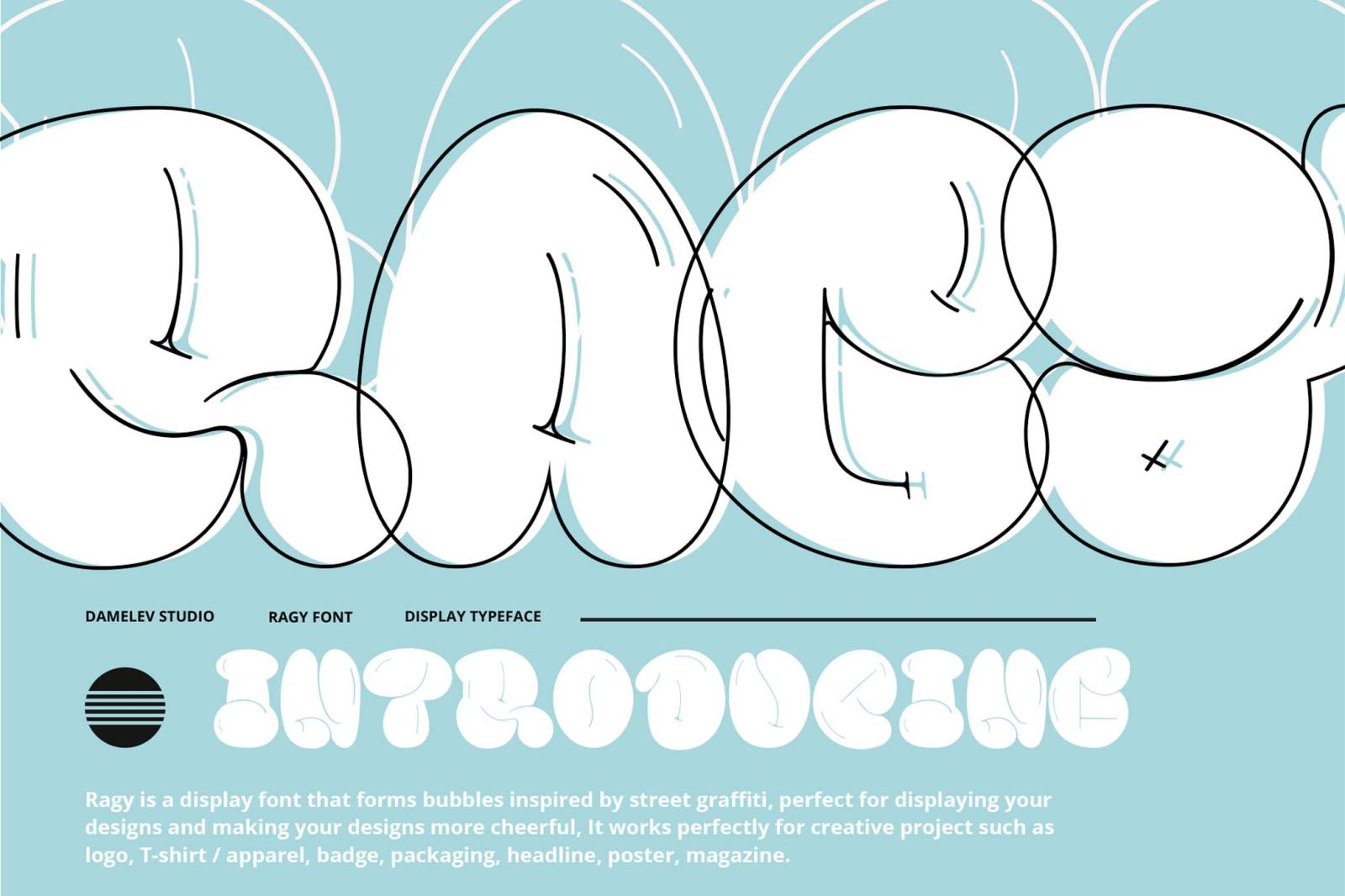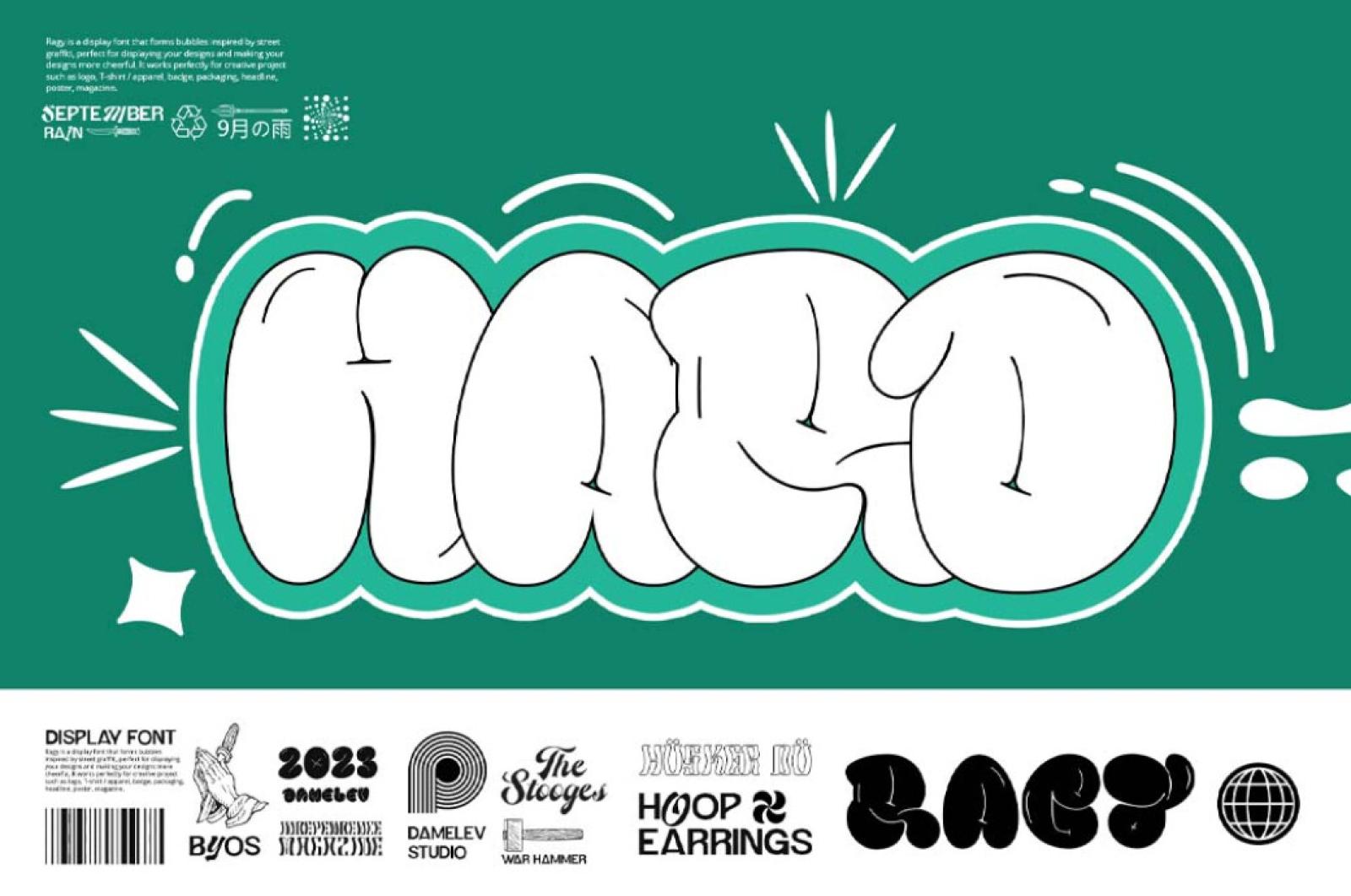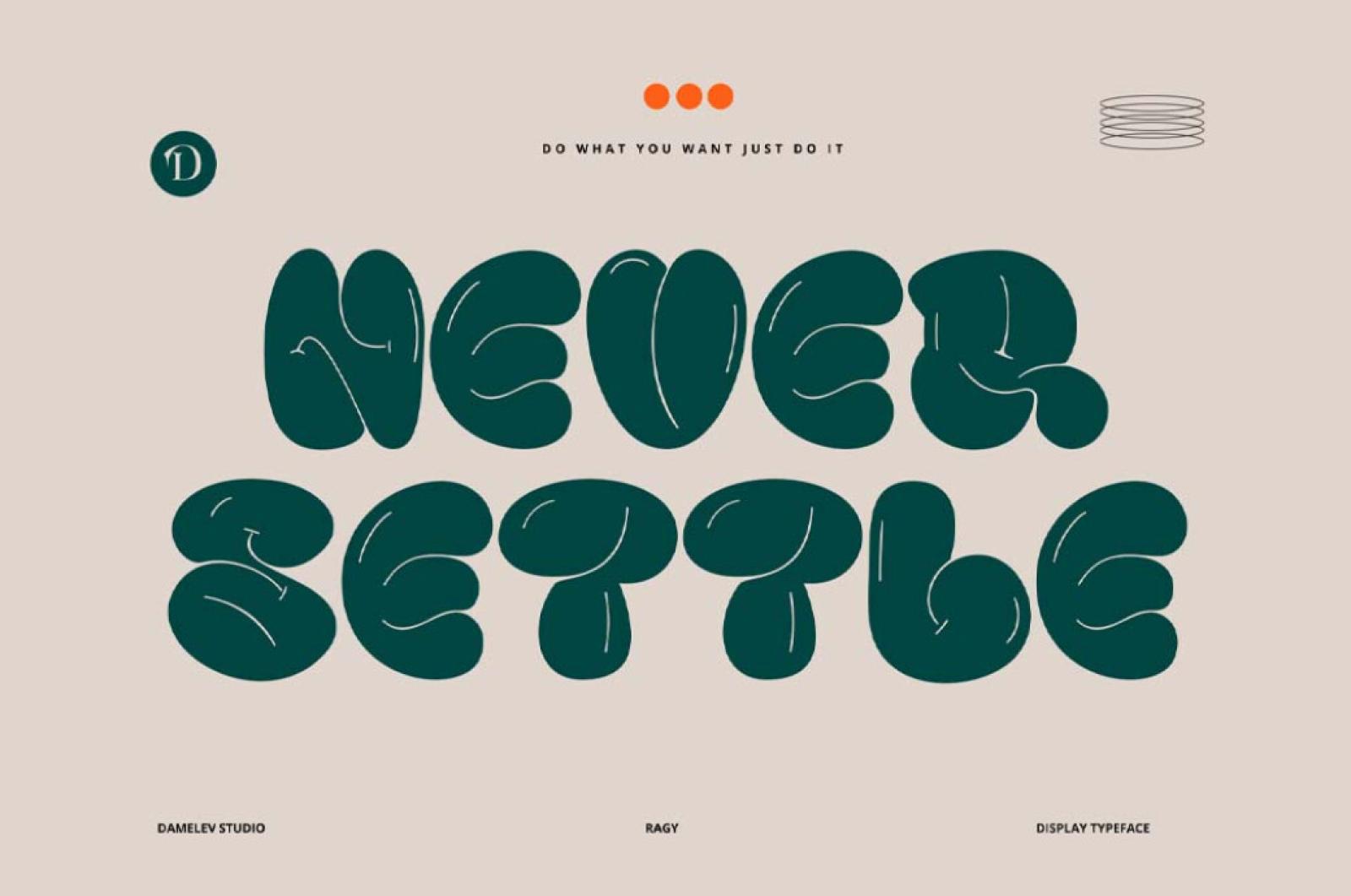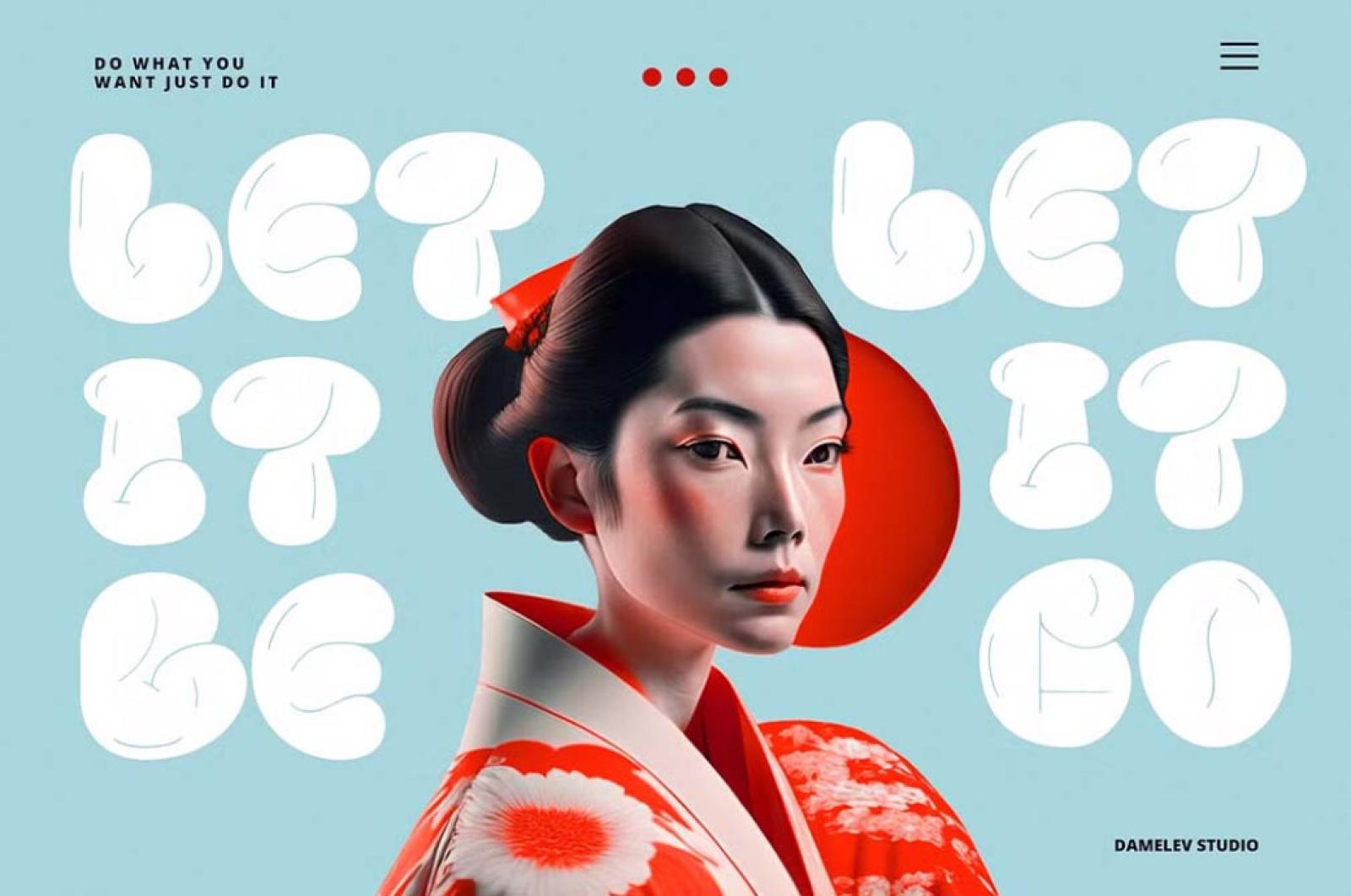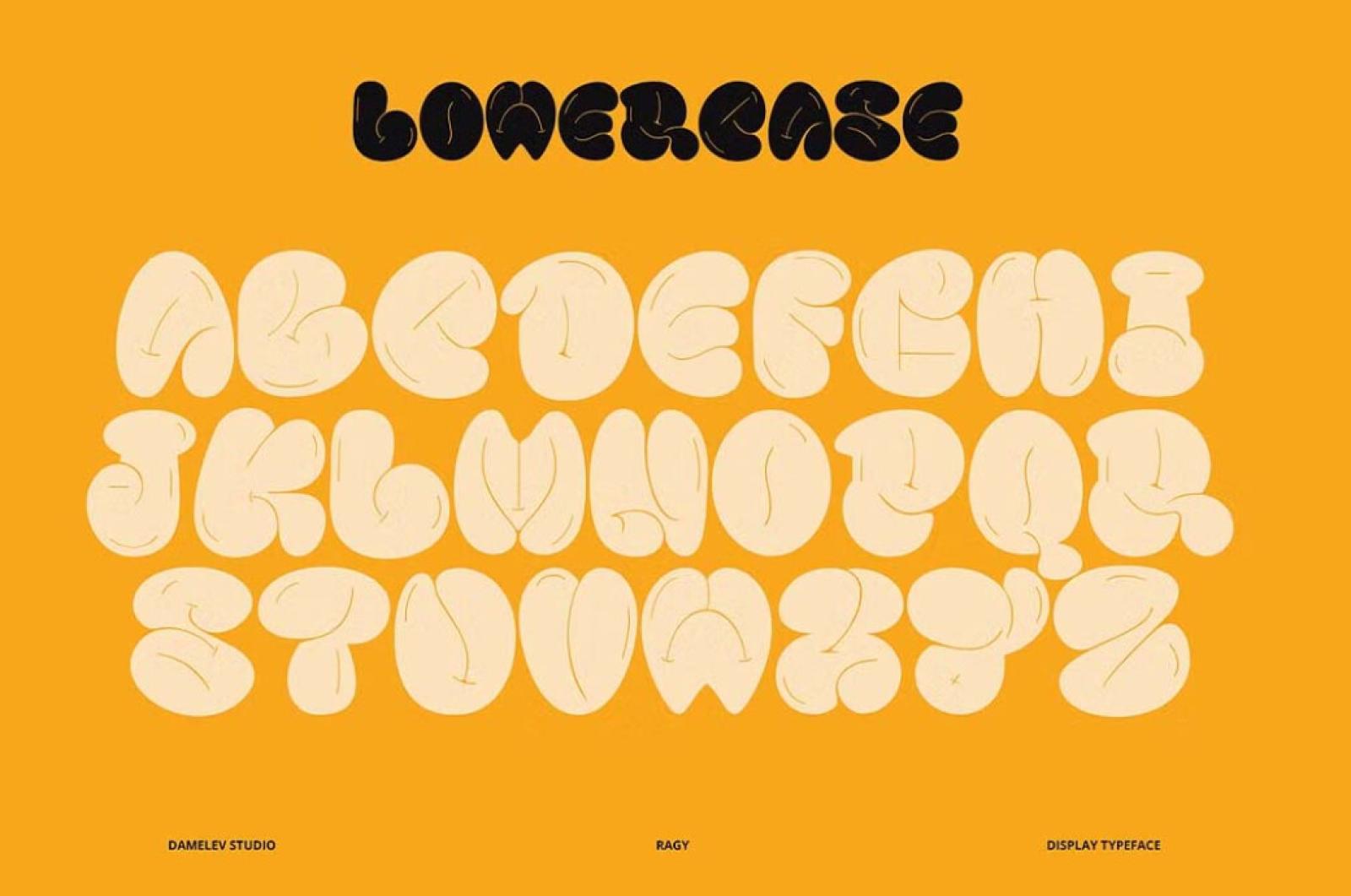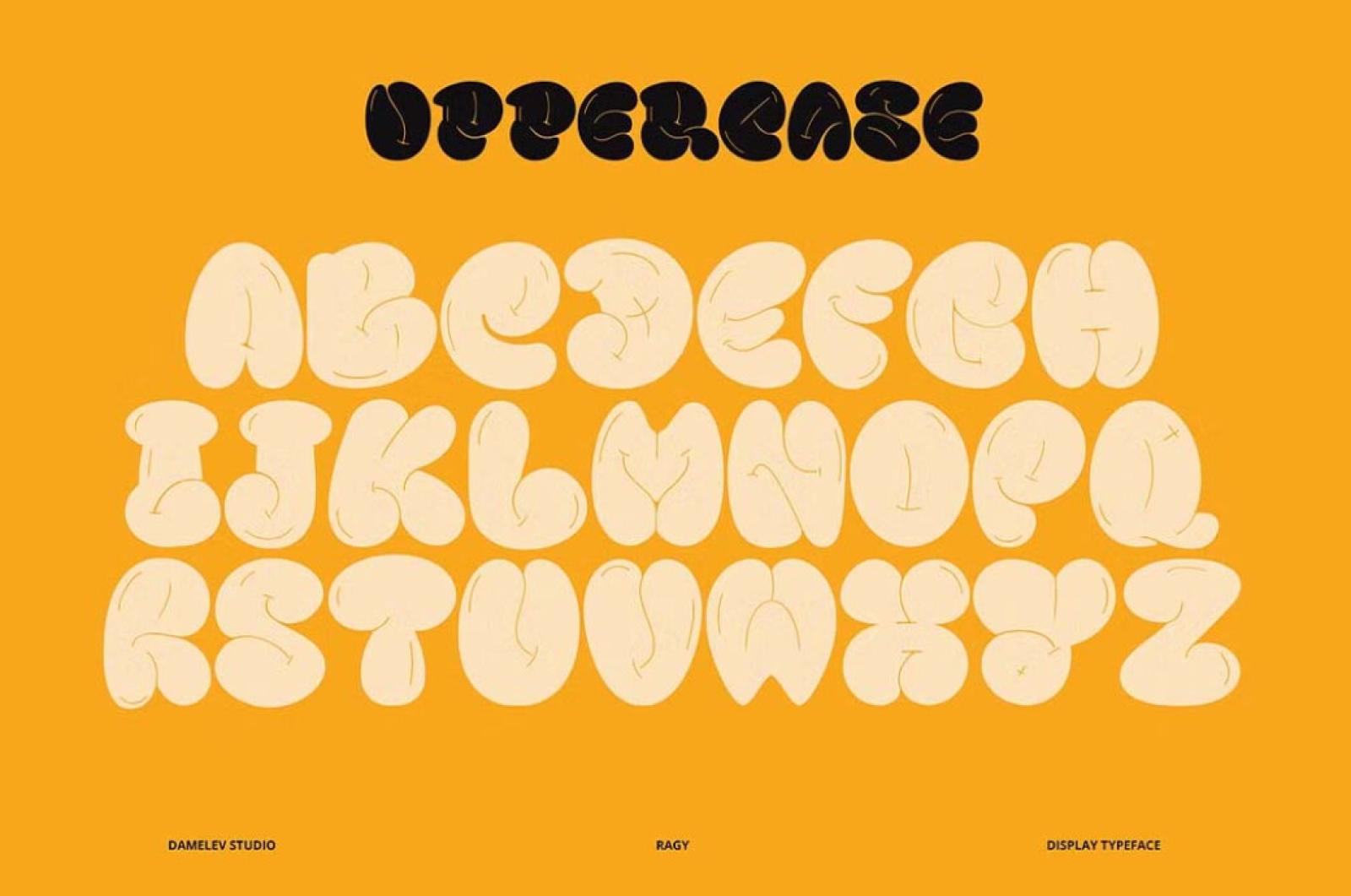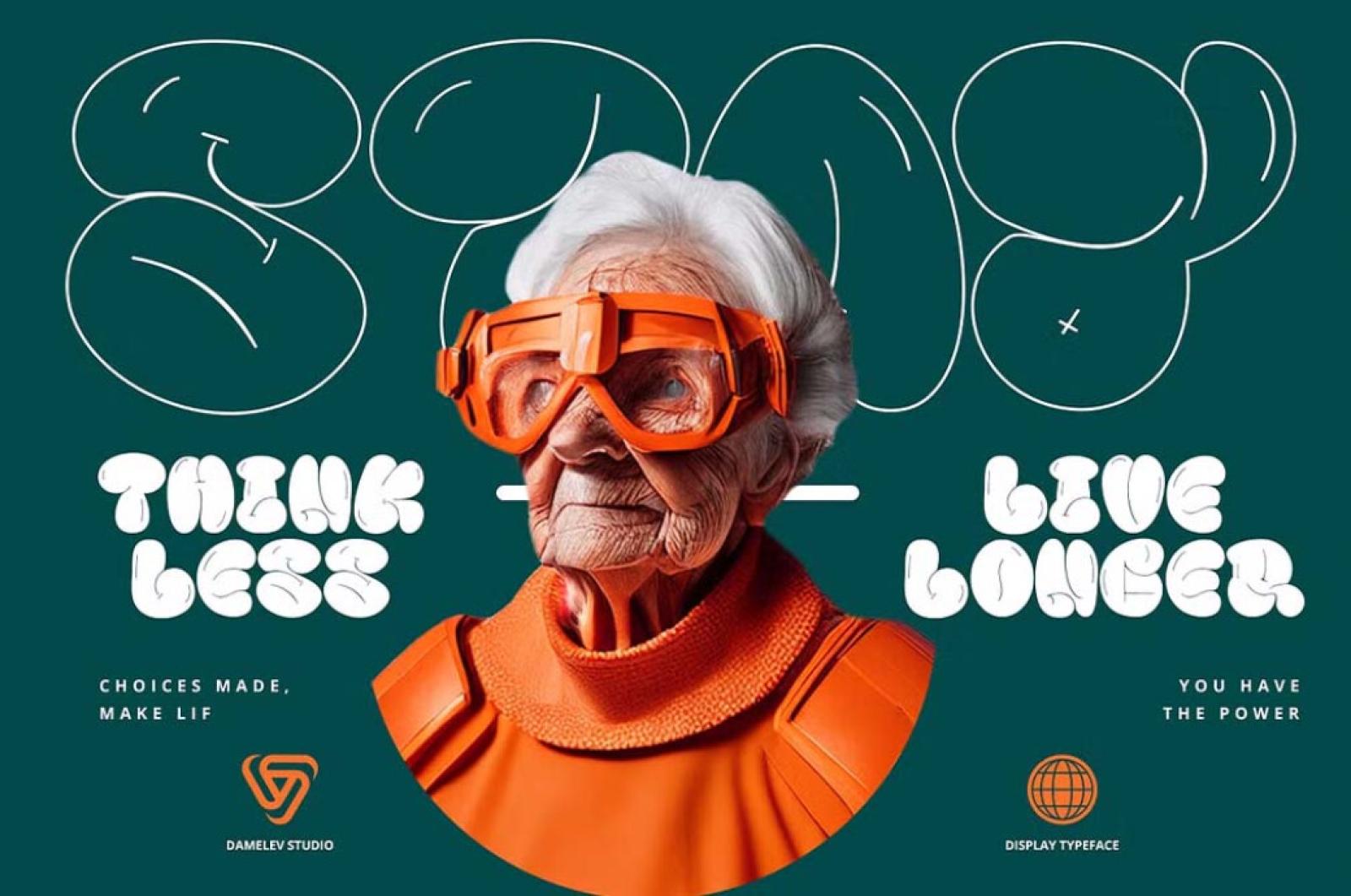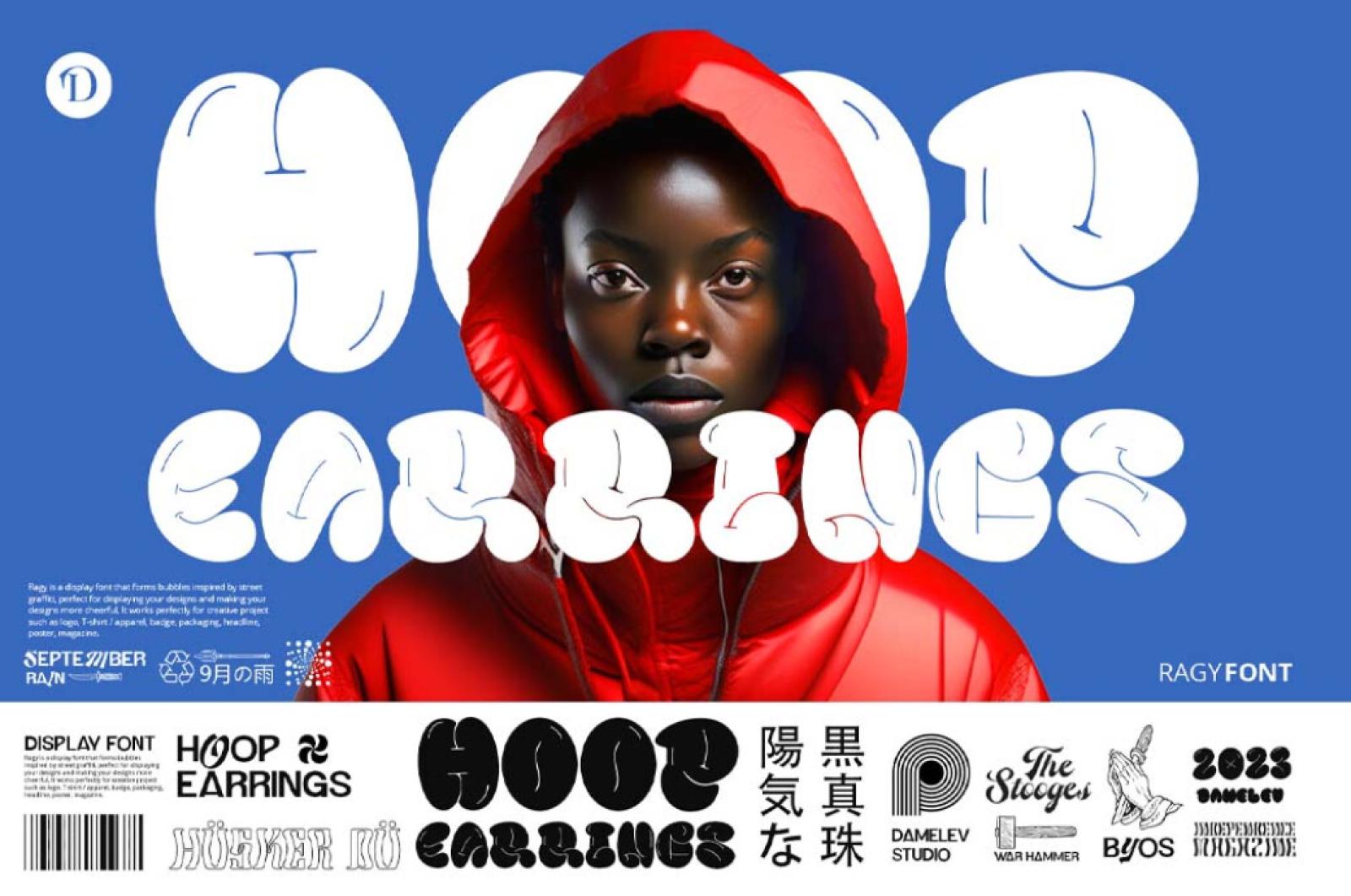
Ragy Bubble Font
You have no idea how much we love this font — it's fresh, cloud-like, and airy. As it should. If you are looking for something puffy and cushiony, that's exactly what you need. The name speaks for itself — bubble types are now all the rage!
This font combines graffiti boldness with bubble lightness. It's an all caps with neatly elaborated numerals being a cool way to create alluring titles and catchy headers. Perfect for magazine covers, posters, handouts, and even comic books. Yes, it is beautifully made, in the finest tradition of the mainstream and the counterculture — it leans hard into the visual flair that makes the comic book's style special.